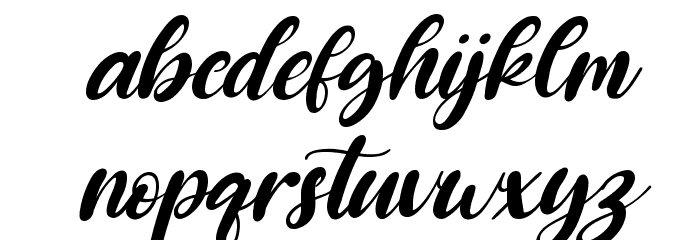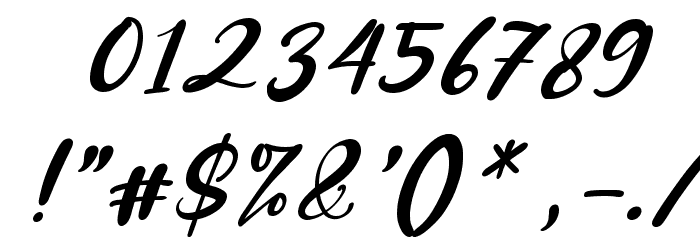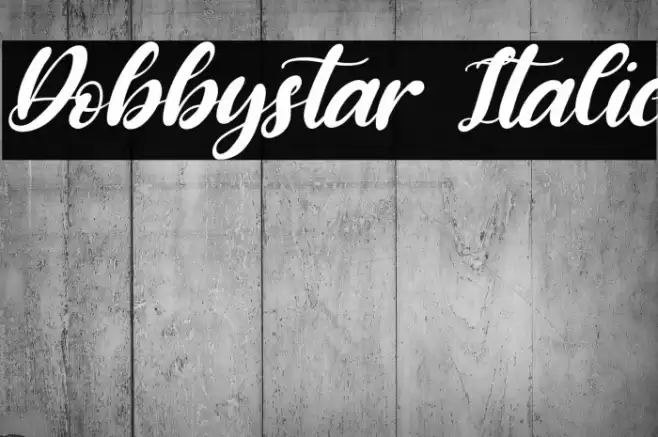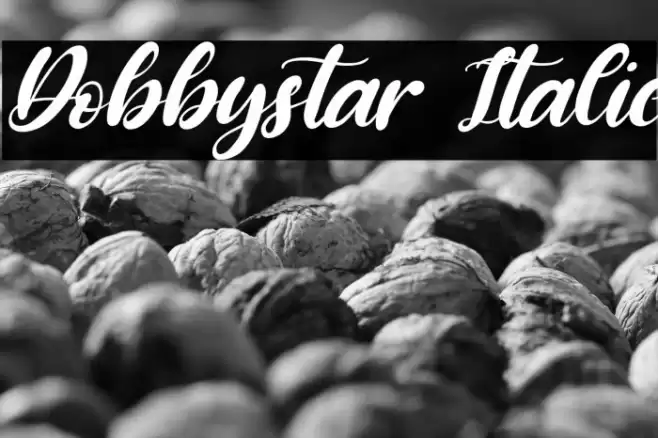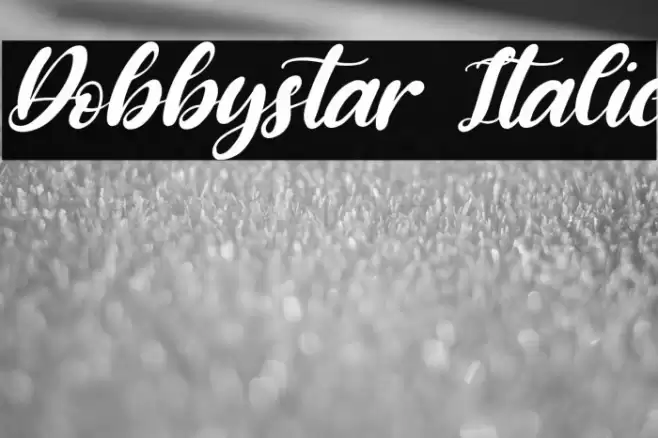
Dobbystar Italic Font
This font features a dynamic and flowing script style, characterized by its elegant and cursive letterforms. The strokes are smooth and connected, giving it a handwritten appearance. The uppercase letters are bold and expressive, while the lowercase letters maintain a consistent flow, enhancing readability. The numerals are styled to match the cursive nature of the alphabet, and the special characters are designed to complement the overall aesthetic. This font exudes a sense of sophistication and creativity, making it suitable for a variety of design applications.
A dynamic and elegant cursive script font with a handwritten appearance.
- Proposed Projects: Ideal for wedding invitations, greeting cards, branding projects, and elegant logo designs.